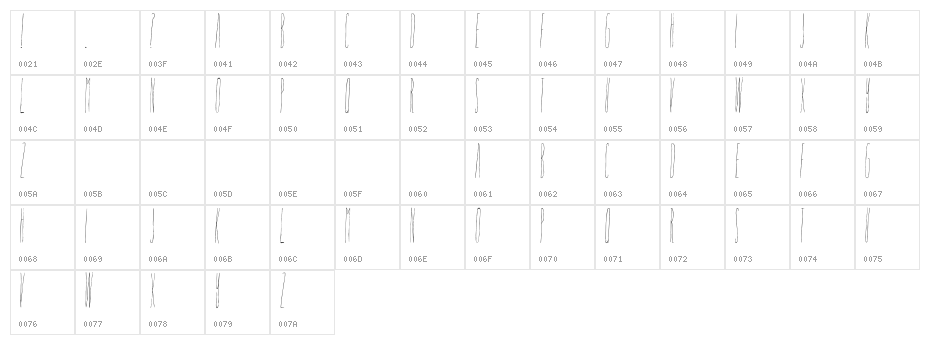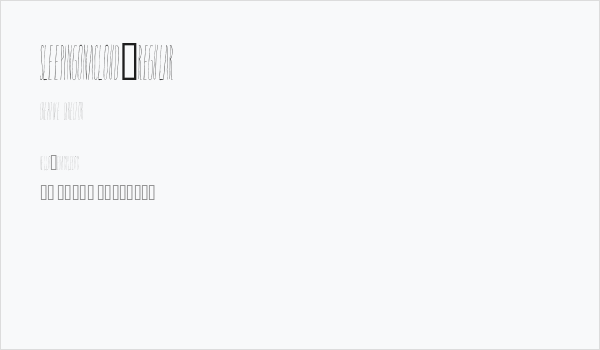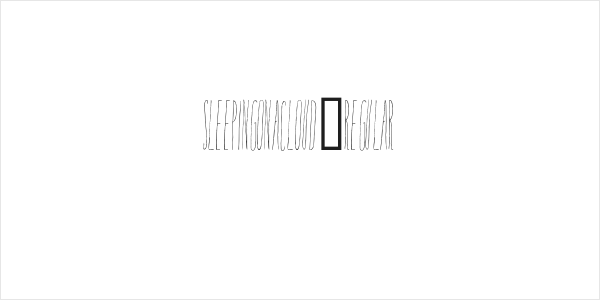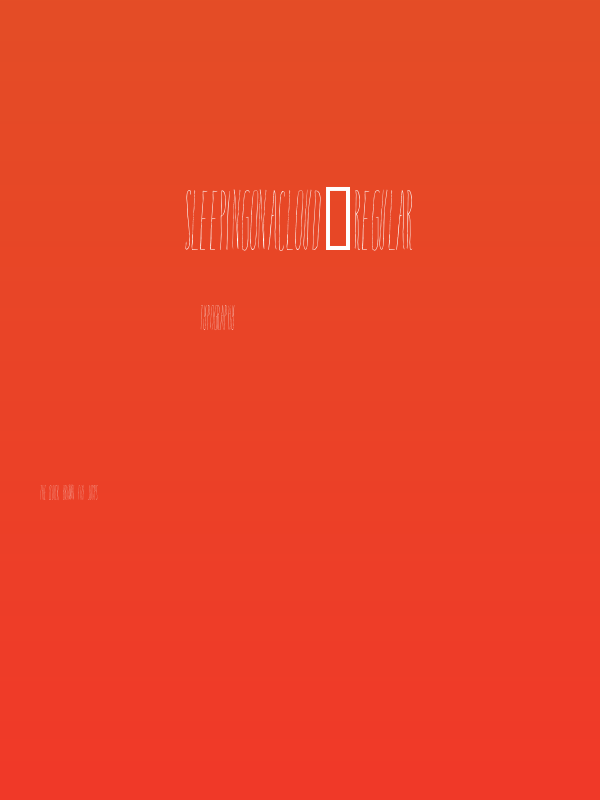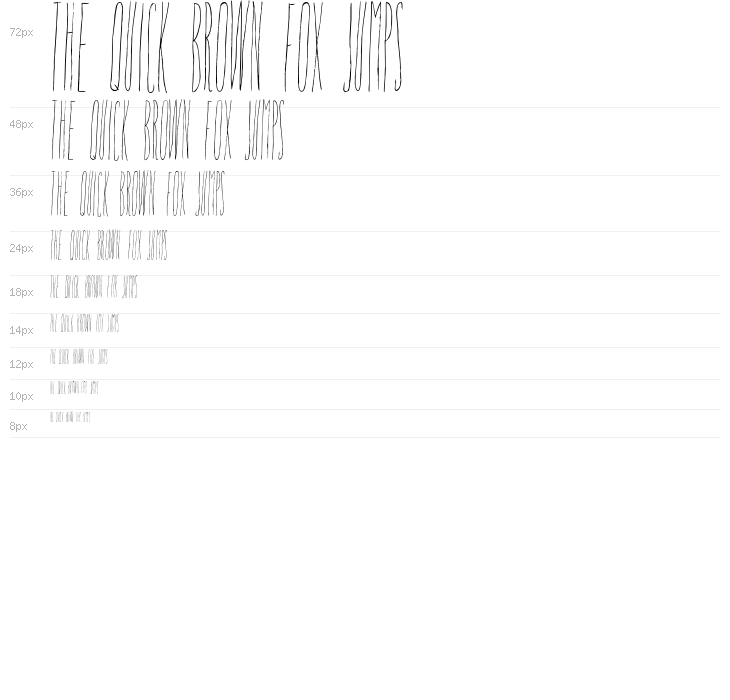
SleepingonaCloud-Regular Font
This font features a whimsical and airy design, characterized by its tall, narrow letterforms and delicate line work. The strokes are thin and elongated, giving it an ethereal quality reminiscent of handwriting. The uppercase and lowercase letters maintain a consistent style, with a slightly playful and informal appearance. The numbers and special characters follow the same aesthetic, ensuring a cohesive look across all glyphs. This font's unique style makes it stand out, offering a creative and artistic touch to any design project.
Use CaseLogos, Artistic projects, Invitations
Proposed ProjectsIdeal for creative projects such as invitations, greeting cards, artistic posters, and branding materials that require a touch of elegance and playfulness.